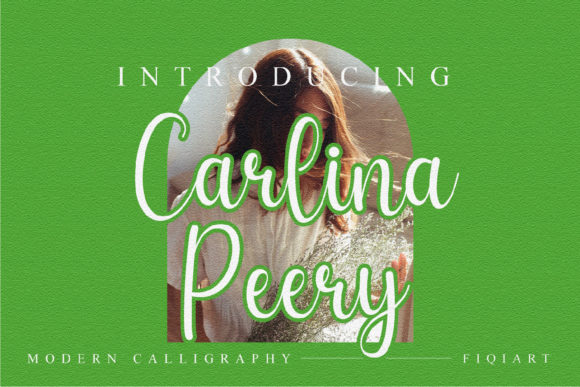
The Designer’s Delight: Carlina Peery Font
I’ll never forget the time I was working on a branding project for a luxury wedding planner. I had spent hours agonizing over the perfect color palette and logo design, but something was still missing. As I scrolled through my font library, I stumbled upon Carlina Peery – a dazzling script font that instantly elevated my design to new heights. In this article, I’ll share my love for this versatile font, its features, and how to make the most of it in your creative projects.
An Honest Review of Carlina Peery
- ✨ Highly detailed and neatly crafted design
- ✅ Versatile and adaptable to various design topics
- 💫 Beautifully rendered script letters and swashes
- 🔍 Excellent for creating elegant headings, titles, and quotes
While Carlina Peery is an exceptional font, there are a few things to keep in mind:
- 🤔 May not be the best choice for body text due to its script nature
A Practical Guide to Using Carlina Peery
- Experiment with OpenType features like swashes and stylistic alternates to add flair to your design.
The Story Behind Carlina Peery
Carlina Peery was designed by a talented typographer who wanted to create a font that would evoke the elegance and sophistication of luxury brands. With its intricate details and flowing script letters, Carlina Peery has become a favorite among designers and crafters.
Q: What type of projects is Carlina Peery best suited for?
Carlina Peery is perfect for creative projects that require a touch of elegance and sophistication, such as luxury branding, wedding designs, and high-end advertising.
Q: Can I use Carlina Peery for body text?
While Carlina Peery is an exceptional font, it’s not ideal for body text due to its script nature. It’s best used for headings, titles, and quotes.
Q: Does Carlina Peery support OpenType features?
Yes, Carlina Peery supports OpenType features like swashes, stylistic alternates, and glyphs, making it a versatile font for creative projects.